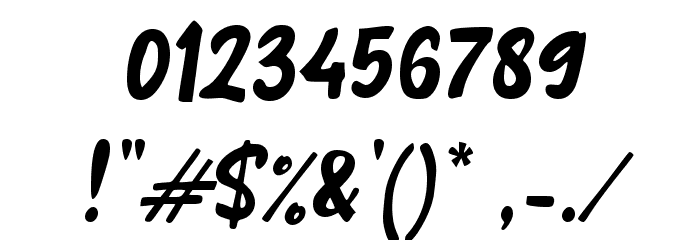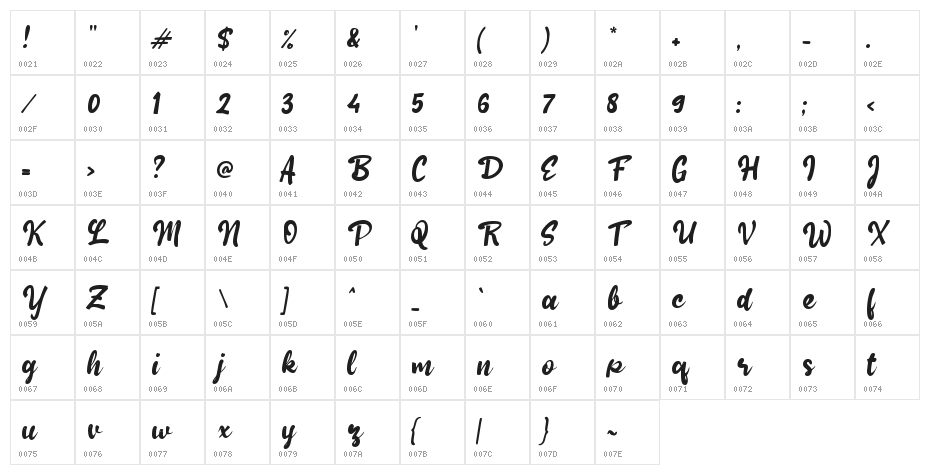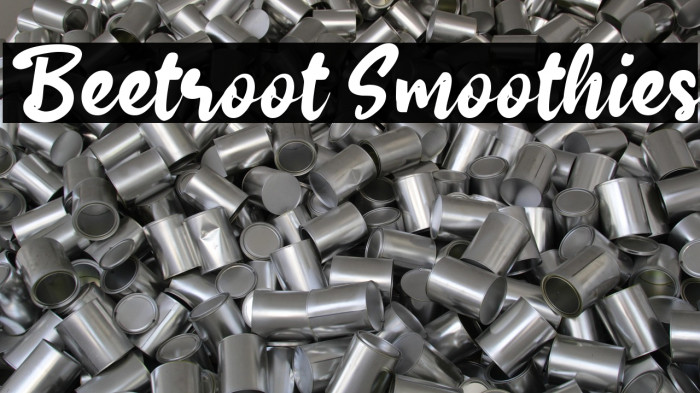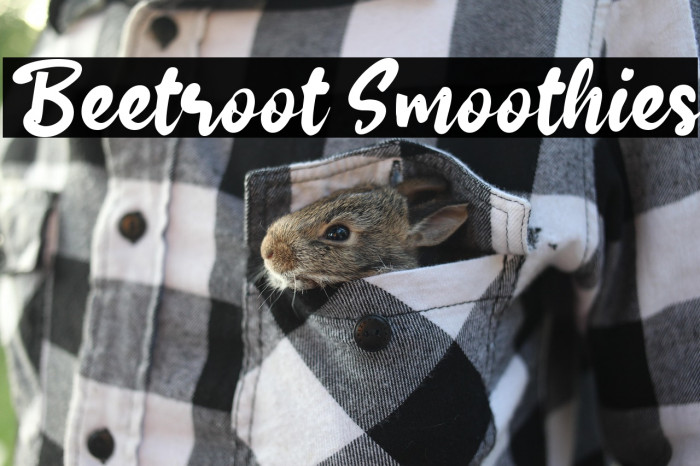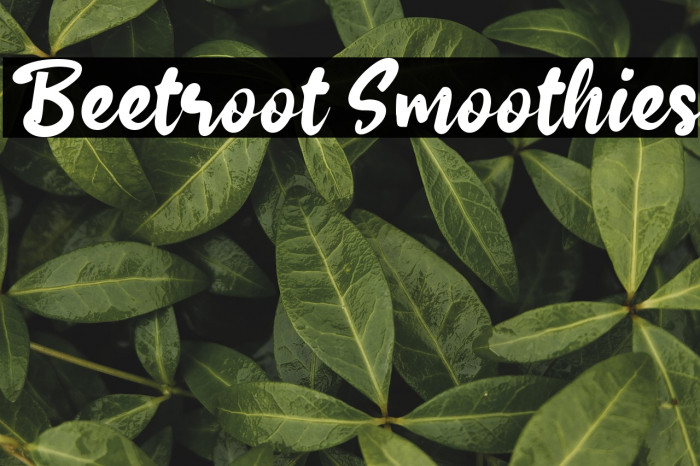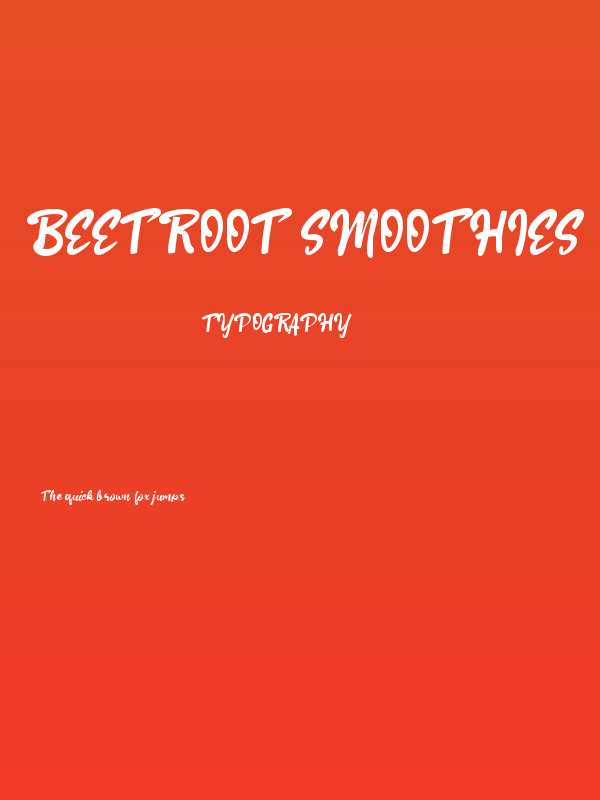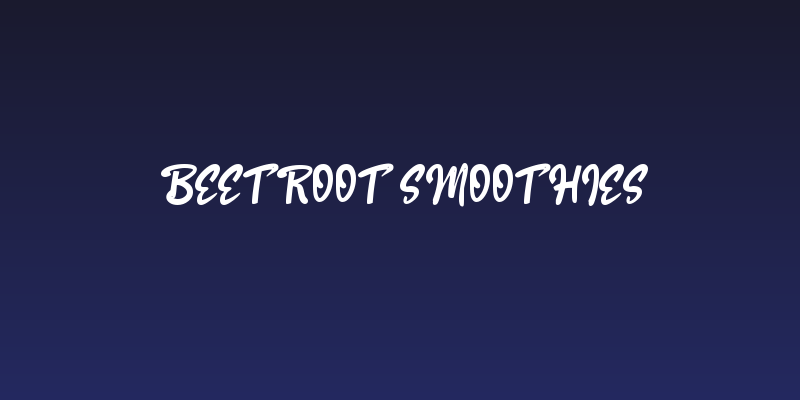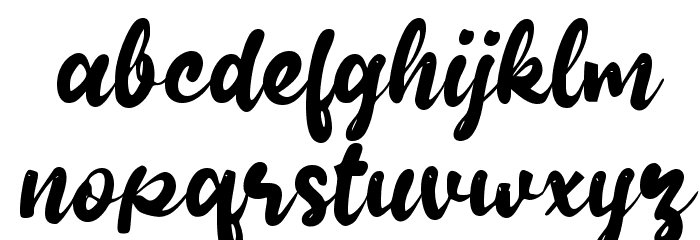
Beetroot Smoothies Font
Beetroot Smoothies Description
This font features a bold and flowing script style, characterized by its smooth, cursive letterforms that convey a sense of elegance and fluidity. The uppercase letters are slightly more formal, with sweeping curves and a consistent stroke width, while the lowercase letters maintain a playful and approachable demeanor. The numerals and special characters are designed to match the overall aesthetic, ensuring a cohesive look across all text. The font's design is reminiscent of hand-lettered calligraphy, making it suitable for projects that require a personal touch. Its bold weight and medium contrast in stroke thickness provide excellent readability, even at smaller sizes.